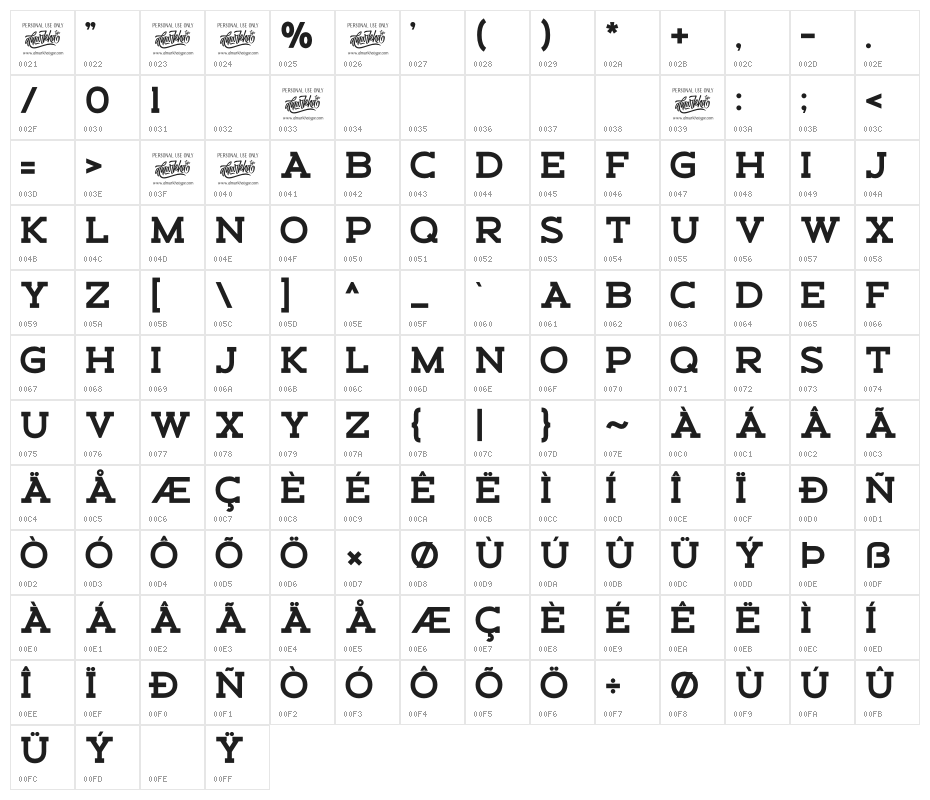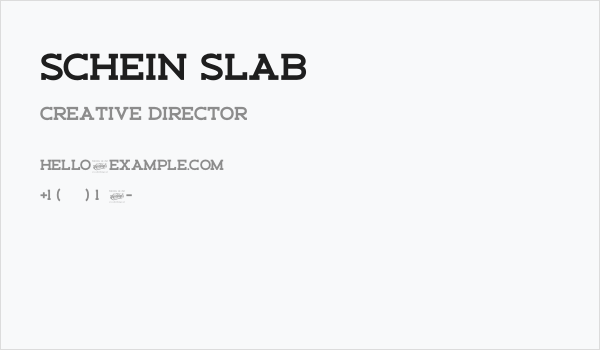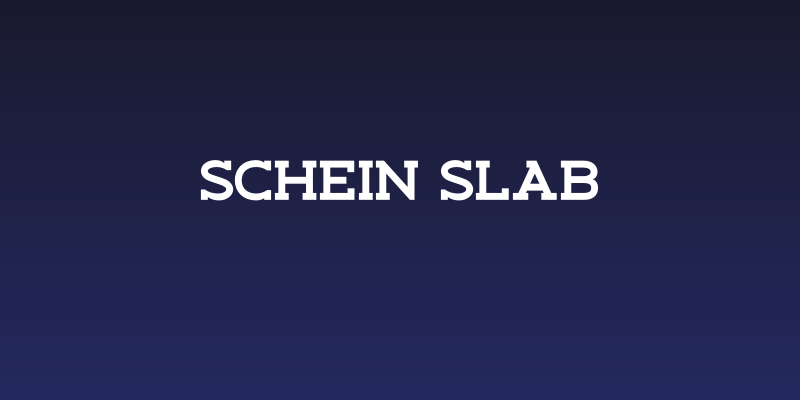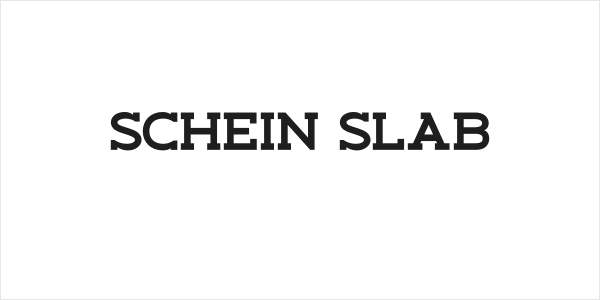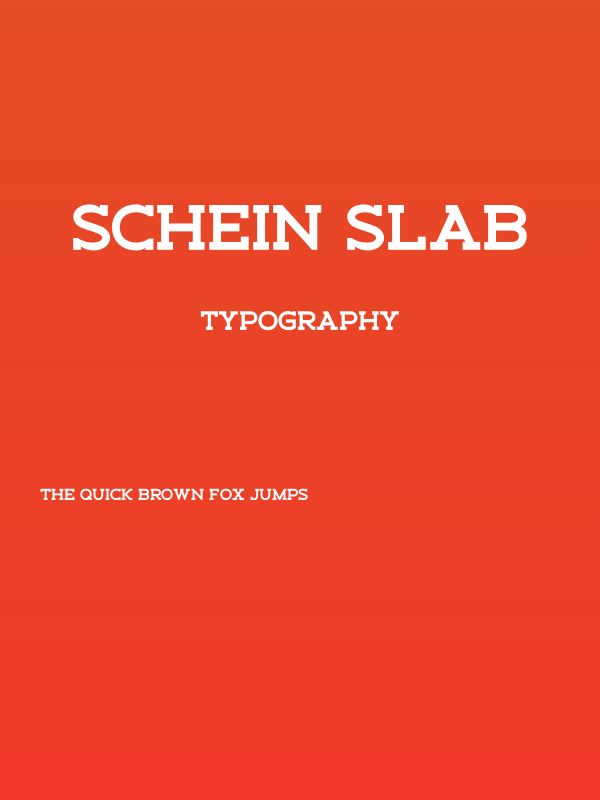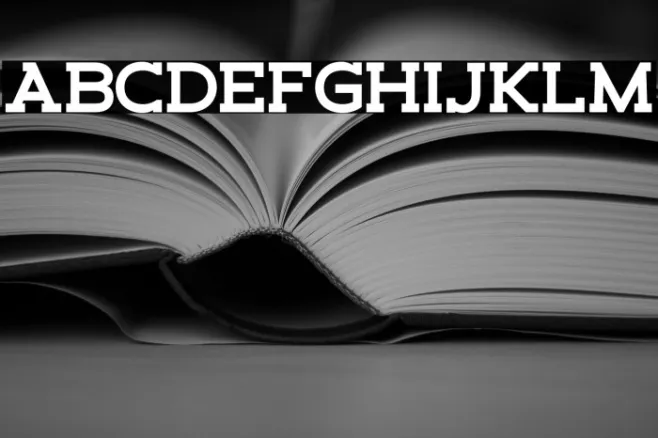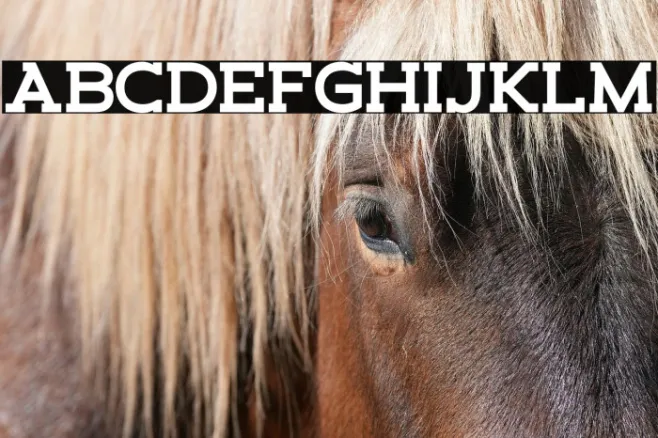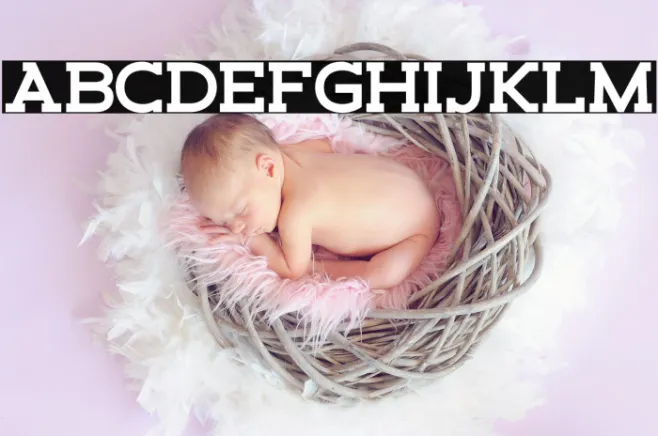
Schein Slab Font
Schein Slab Description
This font features a robust and bold slab serif style, characterized by thick, block-like serifs that give it a strong and authoritative presence. The uppercase letters are uniform in height, with a consistent stroke width that enhances readability. The numerals are equally bold, maintaining the font's overall sturdy appearance. Special characters are designed with the same boldness, ensuring they stand out effectively. This font's design is both modern and classic, making it versatile for various applications.
| Proposed Projects | Ideal for headlines, posters, branding, and any project requiring a strong, impactful typeface. |